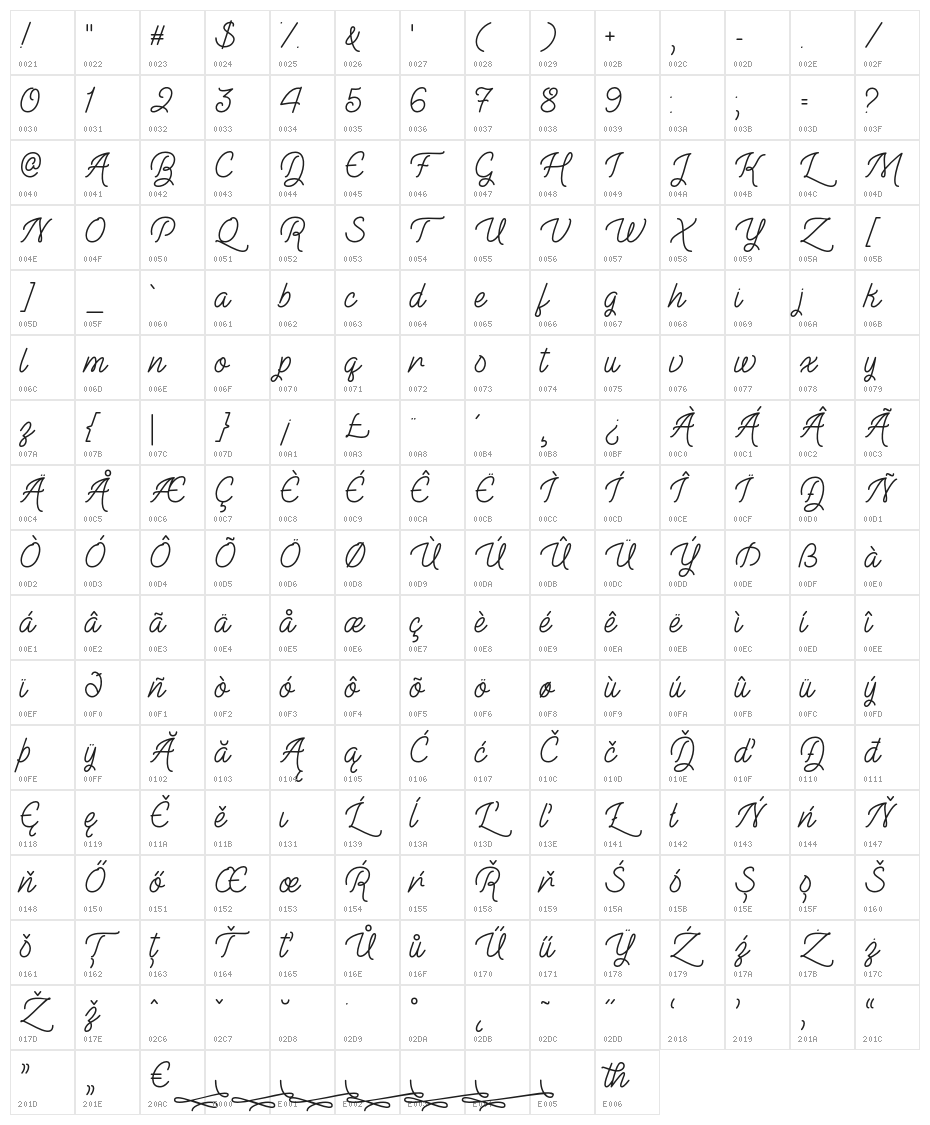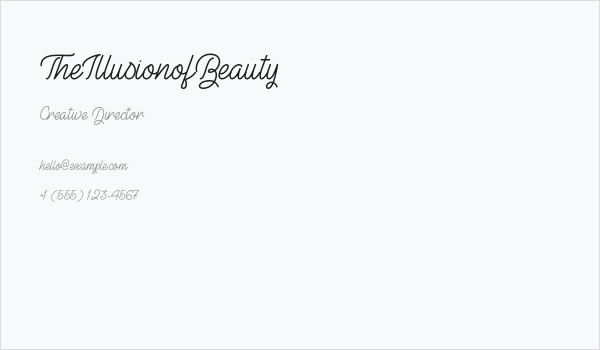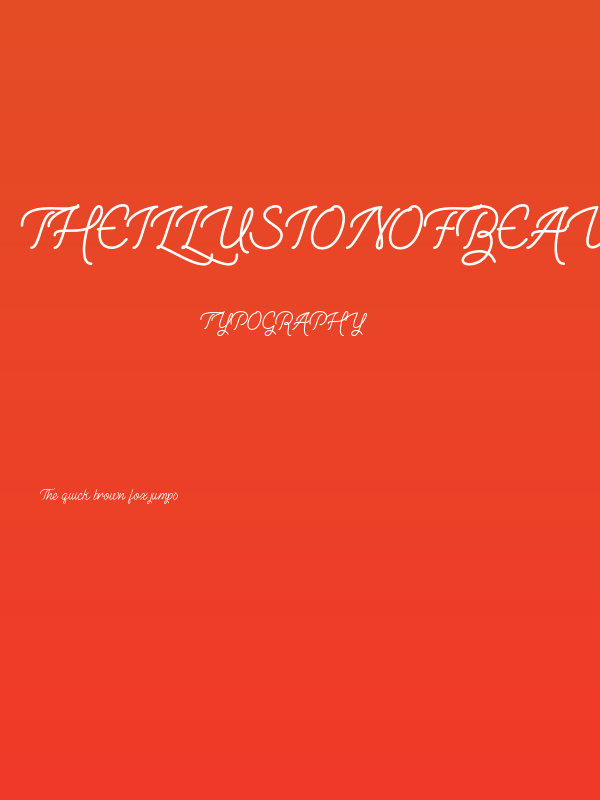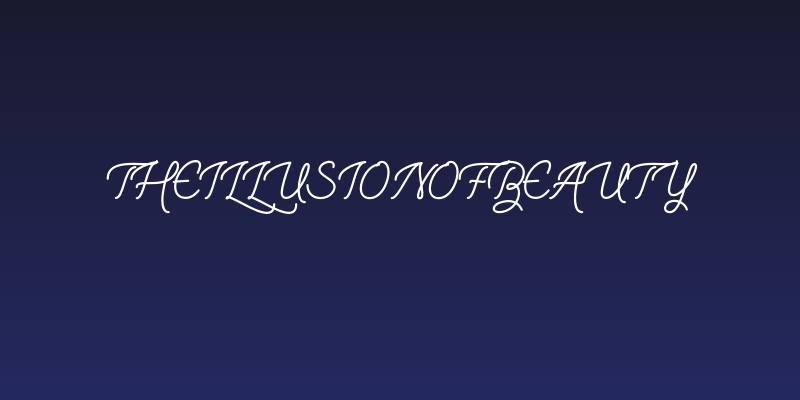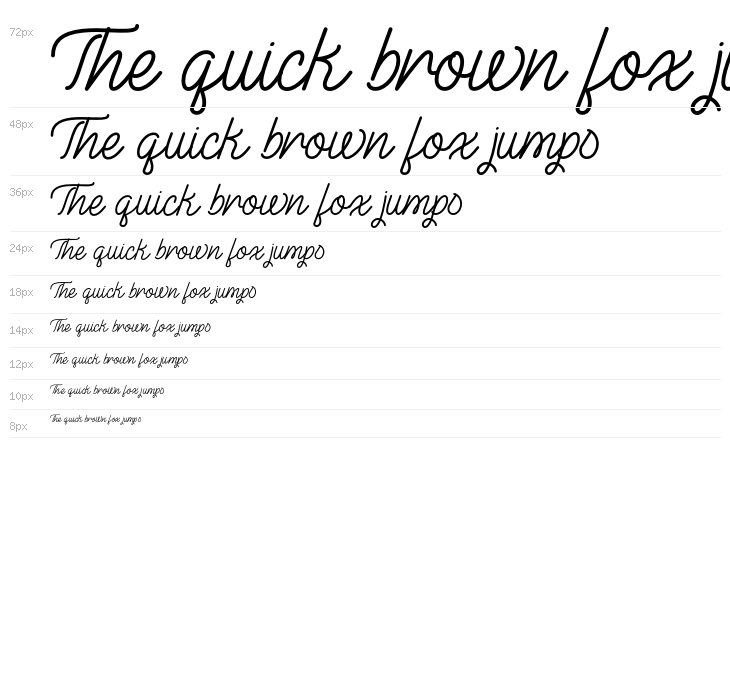
TheIllusionofBeauty Font
TheIllusionofBeauty Description
This font features an elegant and flowing script style, characterized by its smooth, continuous strokes and graceful curves. The uppercase letters are ornate, with intricate loops and swirls that add a touch of sophistication. The lowercase letters maintain a consistent flow, enhancing readability while retaining an artistic flair. Numbers and special characters are designed to complement the overall aesthetic, with a balanced mix of curves and straight lines. This font exudes a sense of elegance and refinement, making it suitable for formal and decorative purposes.
| Overall Style | Elegant, Decorative |
| Proposed Projects | Ideal for wedding invitations, elegant branding, greeting cards, and decorative signage. |